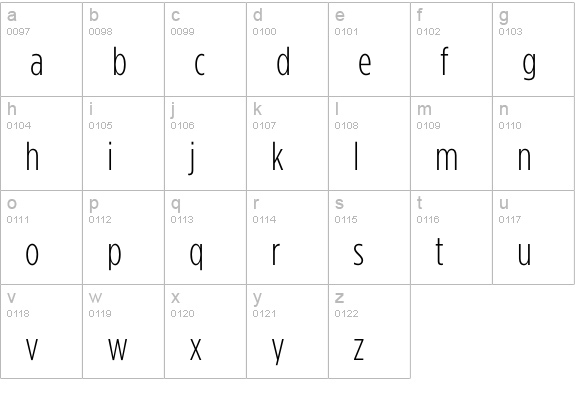
Gotham Condensed Light Font Details
Gotham Condensed Light is a refined, elegant, condensed-width variant in the Gotham typeface family \xE2\x80\x94 well suited to elegant body text, refined sub-headings, and luxury branding.
Gotham Condensed Light is a sleek and elegant typeface that exudes modernity and sophistication. With its clean lines and balanced proportions, this font is perfect for creating a contemporary and professional look in your designs. The light weight of the font adds a touch of delicacy and refinement, making it ideal for a wide range of applications, from branding to editorial design. And the best part? Gotham Condensed Light is available for free download at FontsMarket.com! Now you can easily access this high-quality font and elevate your projects with its timeless appeal. Don't miss out on the opportunity to enhance your designs with the effortless beauty of Gotham Condensed Light – get your free download today!